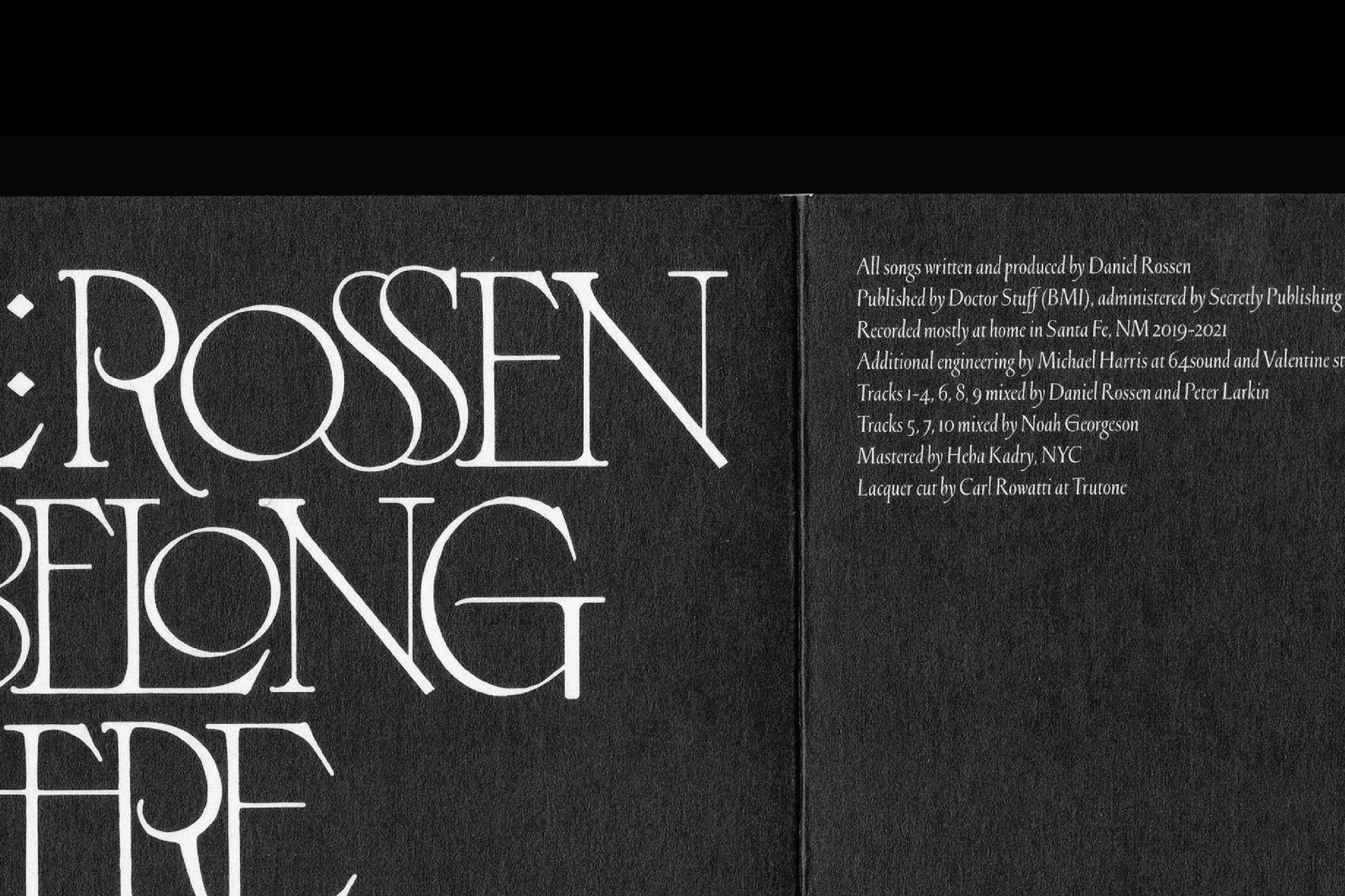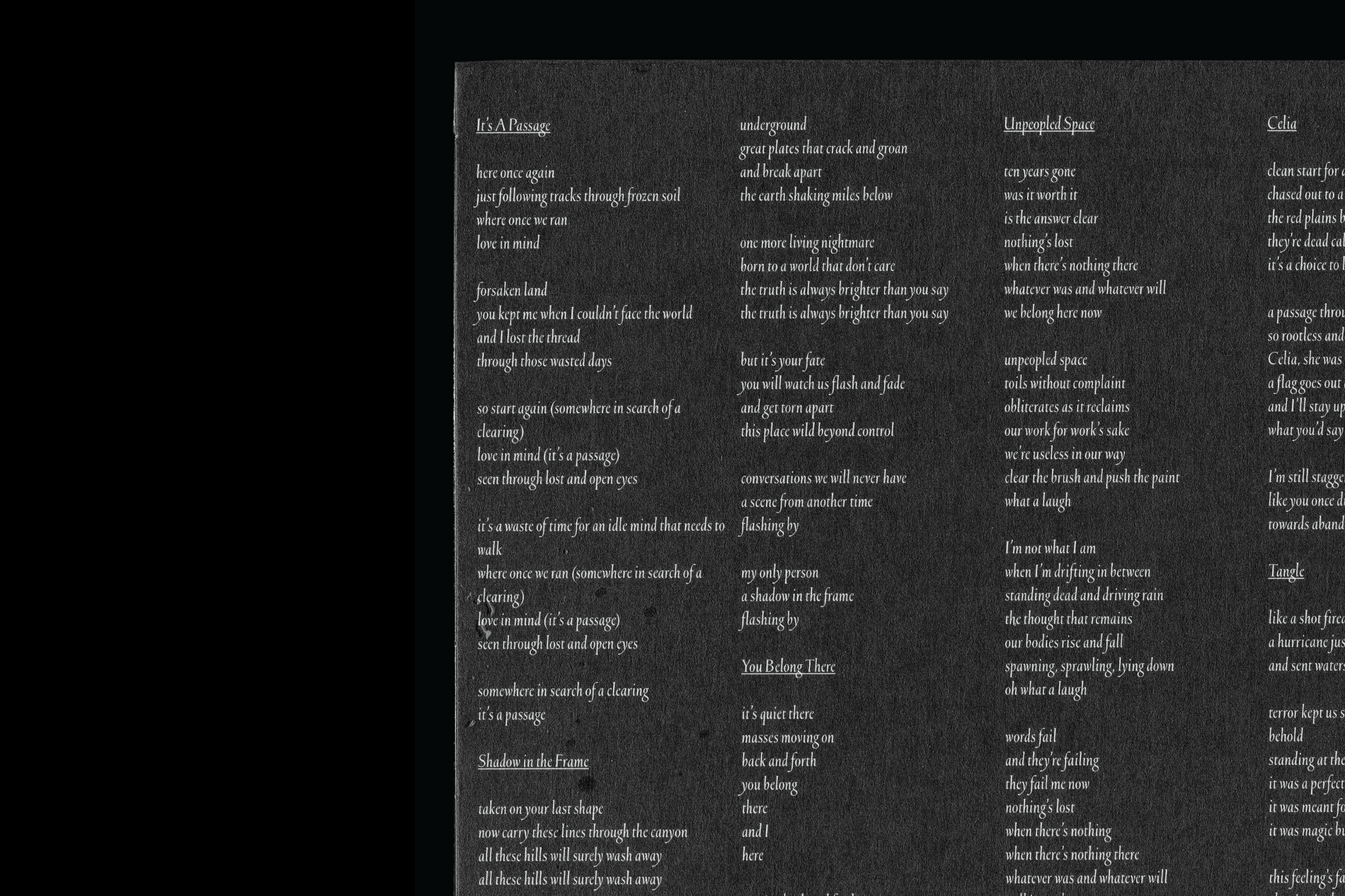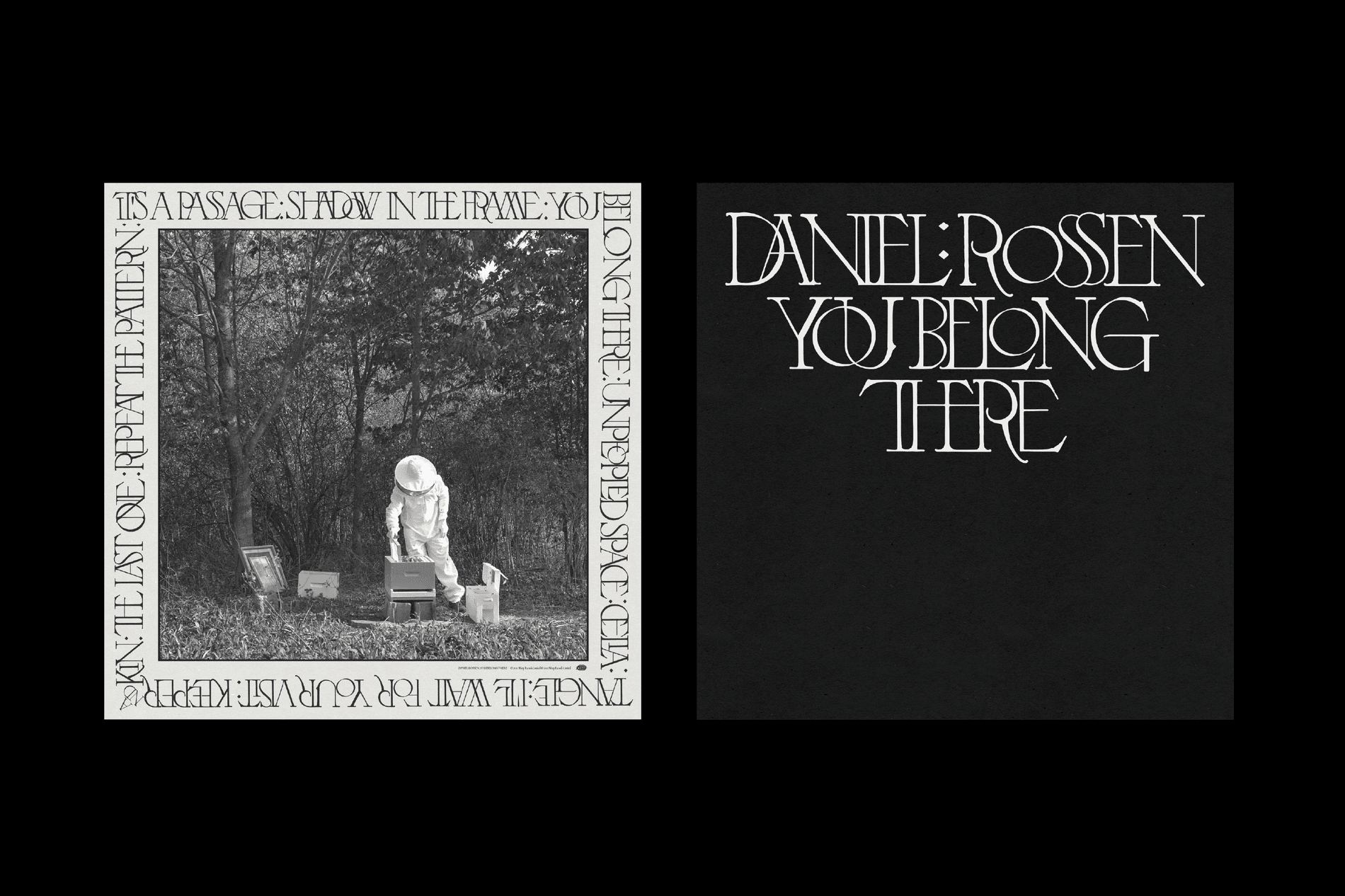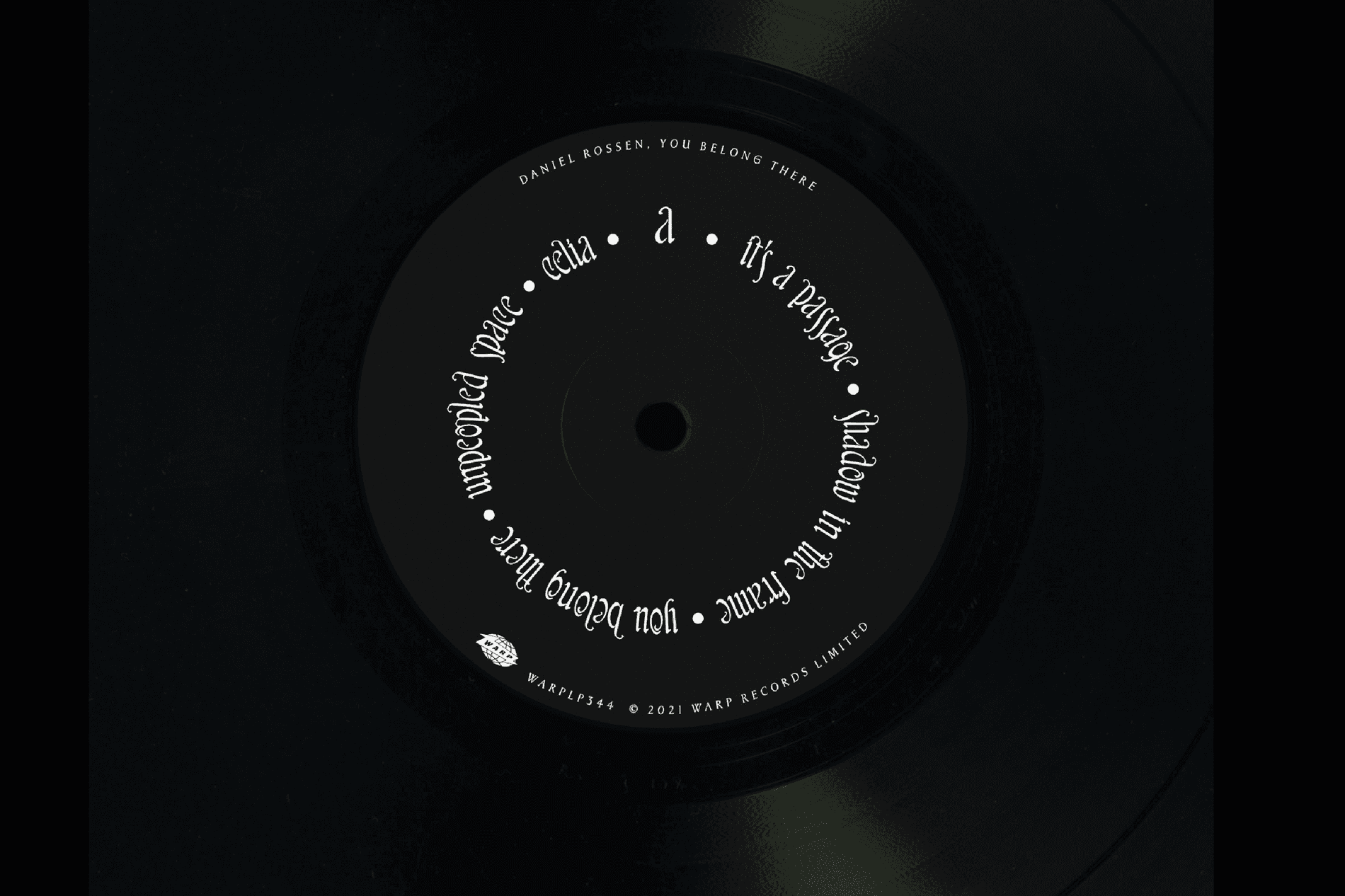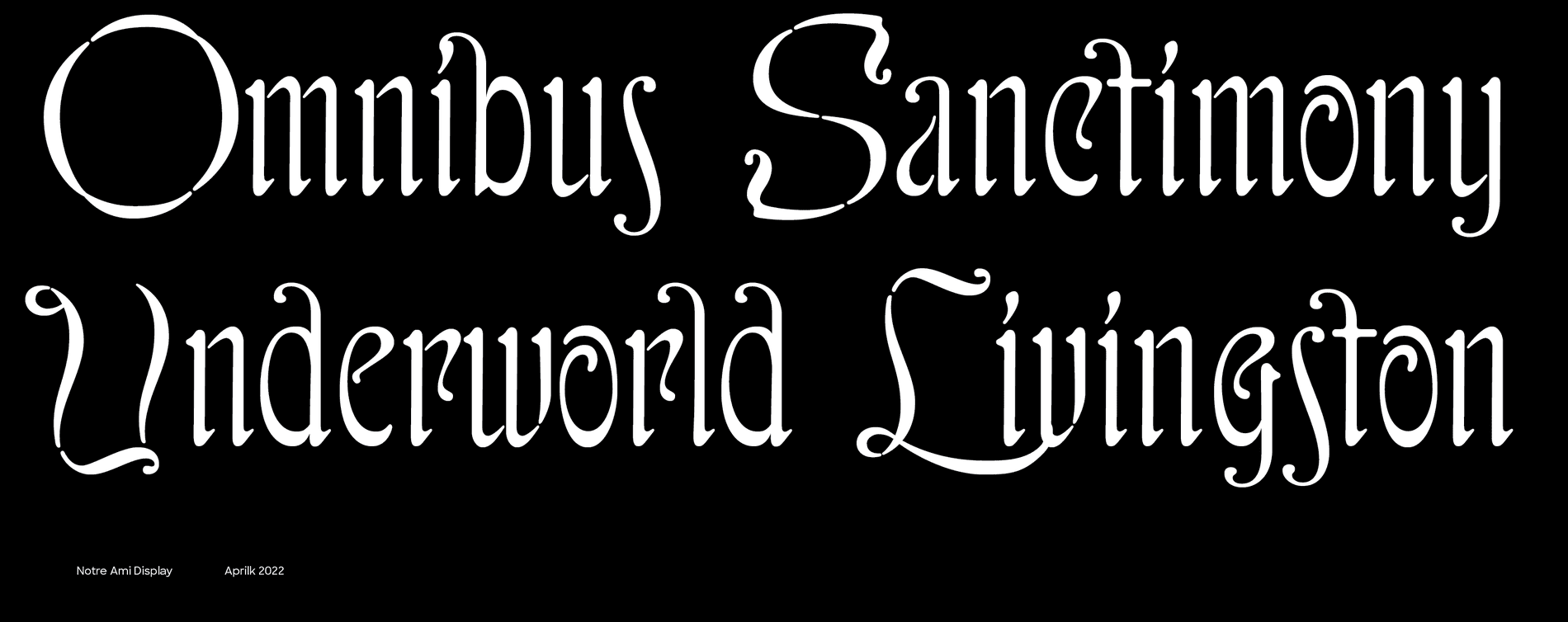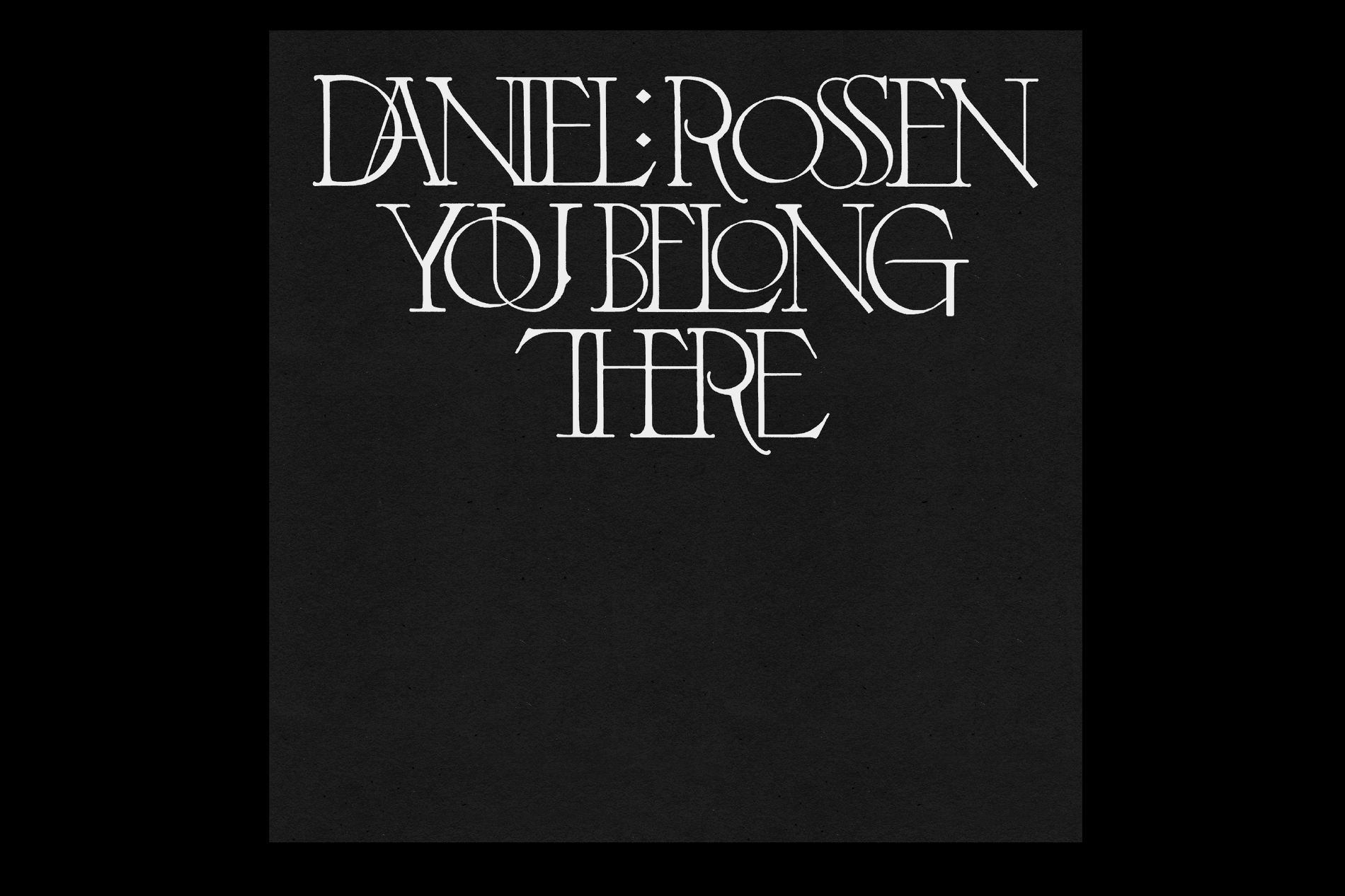
Sharp Type designer and systems lead, Justin Hunt Sloane, created the artwork for Daniel Rossen’s first solo album You Belong There, released by Warp in the spring of 2022. Justin began the design late last summer and finished a few months later in November, using three fonts to beautiful effect.
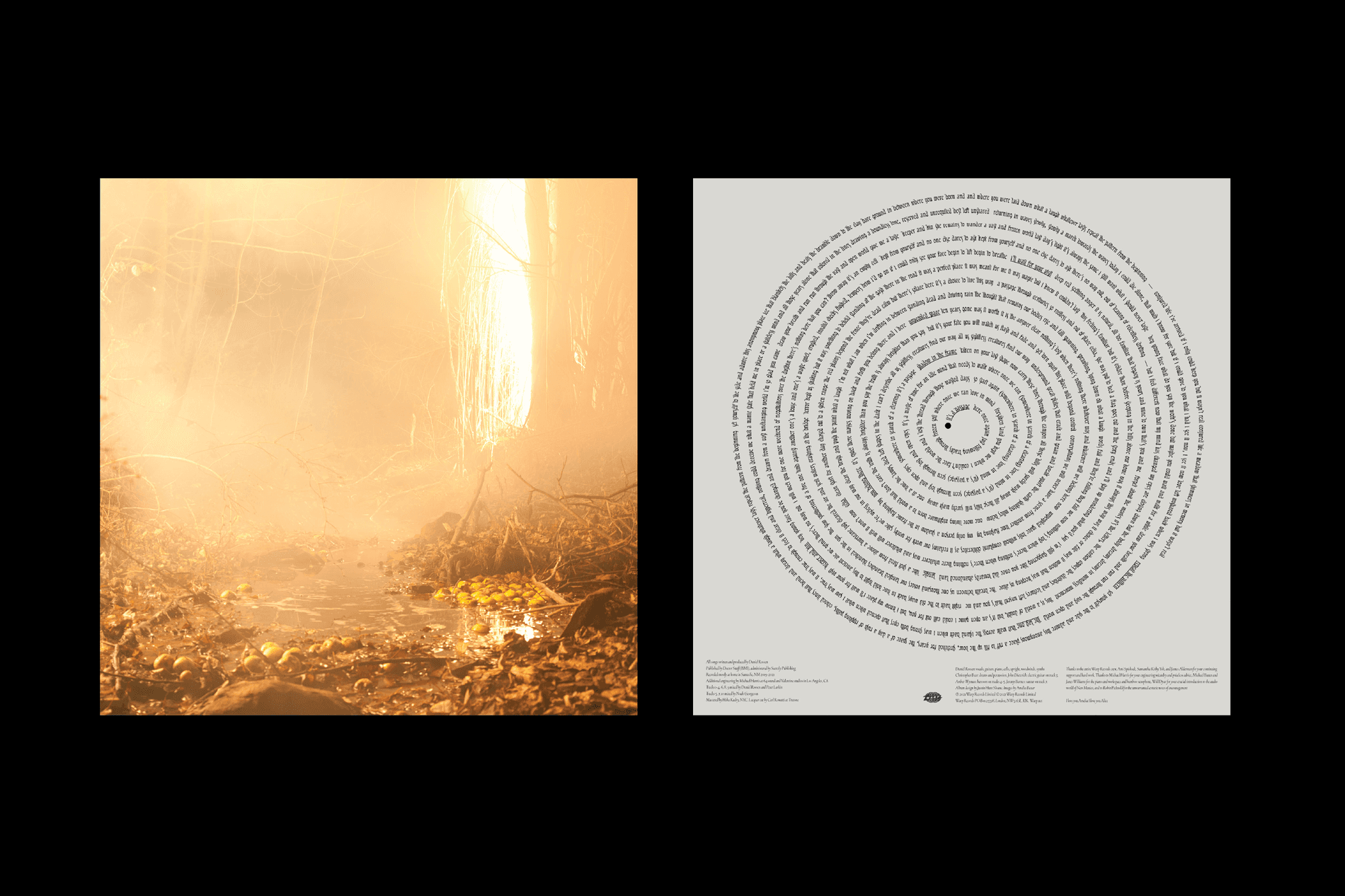
A striking custom font serves as the main display face, inspired by the capital letterforms of French-Catalan designer Louis Jou (1881-1968). Jou’s work is immediately recognizable by capital letterforms that are so stacked and overlapped with ligatures that they often border on absurdity.
In addition, an ongoing exploration tentatively called Notre Ami spirals outward hypnotically on the album’s back cover. The letterforms’ charming idiosyncrasies were also inspired by Jou, specifically the memorable cover lettering of his book Notre Ami from 1929.
Finally, Greenstone, released by Sharp Type and designed by our own Connor Davenport, provides crucial support as the captioning and lyric font. Greenstone’s inscriptional qualities are characterful and foundational, even at a small scale.
LOUIS JOU (1882-1968)
The story goes that young Louis Jou was illiterate until the age of ten, when his parents apprenticed him to a printer. It’s remarkable that someone from such humble beginnings would grow up to become known as the “architect of books.” Jou became a prolific and masterful engraver, illustrator, typographer, type designer, book publisher, and bookmaker. He seemed preternaturally gifted in these arts, and it’s rare to encounter an artist who seemed so wholly suited to all aspects of his craft.
There’s an affinity we feel to Jou’s deep dedication to research, and there’s much inspiration to pull from his work. His reaction to the growing industrialization of type design was to further emphasize its more humanistic aspects through his revivalist designs. Even today, they feel fresh and inventive, but also personal--which might be another way of saying his work feels slightly out of time. We were pleased to discover Jou’s own passion for illuminated manuscripts and 15th-century texts. There’s a mutual love for letterforms that reach for a certain religious perfection but still retain the warmth and spirit of the human hand.
As a testament to his thoroughness and perfectionism, Jou even had his paper specially commissioned; furthermore, the brilliant orange-red ink that colors the titles in works like Notre Ami was created by Jou himself.
Louis Felipe Vicente Jou I Senabre was born in Garcia, a town on the outskirts of Barcelona. During his apprenticeship, his evident talent was recognized by the firm’s creative director, Euald Canibel, who mentored young Jou and exposed him to the world of letterforms, books, and binding. After moving to France, Jou eventually set up his own publishing house in Paris, and his work could be found in books authored by literary contemporaries like Gide, Hugo, Bakery, and Cervantes, among others. The native Catalan would eventually become a naturalized French citizen in 1927.
During his lifetime, Jou gained a reputation as one of the greatest typographers of the 19th century. Today, his work–exemplified by ornamental ligatures whose designs are as inspiring as they are intricate–is often overlooked in comparison to predecessors like the Briton William Morris. Even so, there is a steadfast cult following of his work amongst contemporary designers and typography enthusiasts; if you know what to look for, you will see traces of Jou's influence throughout the design world.